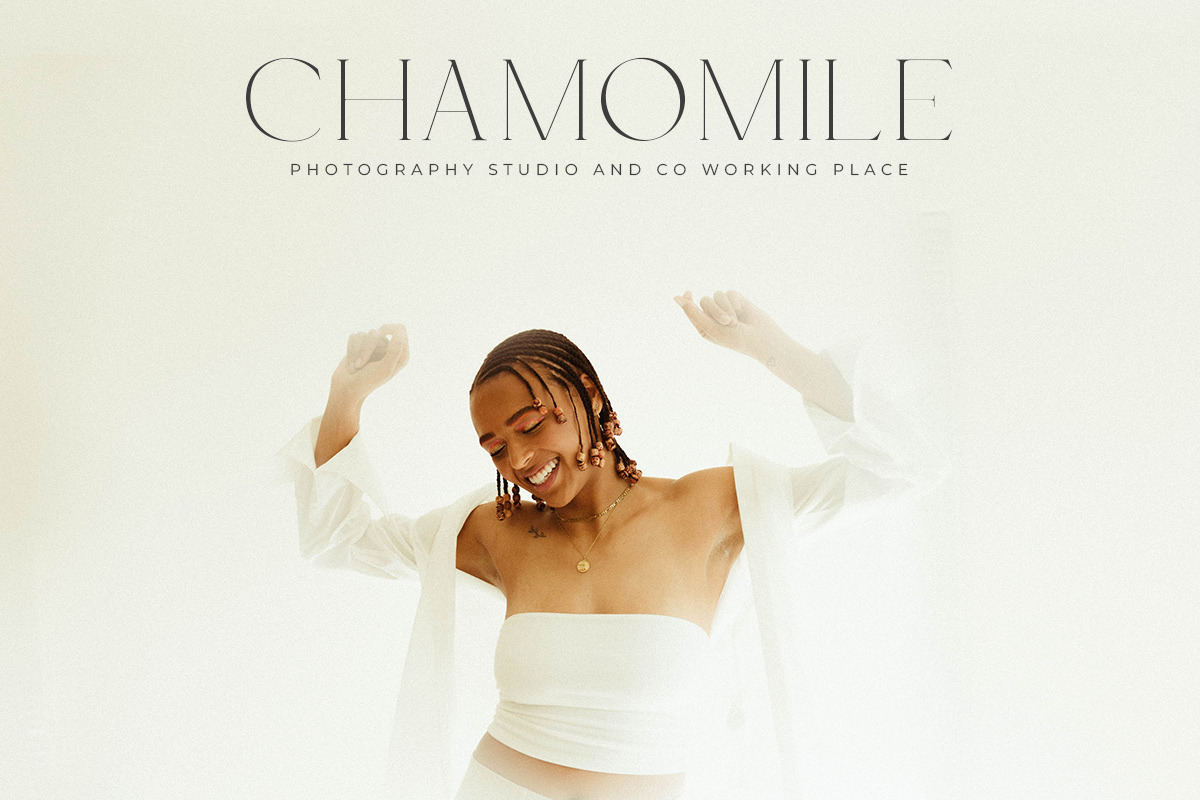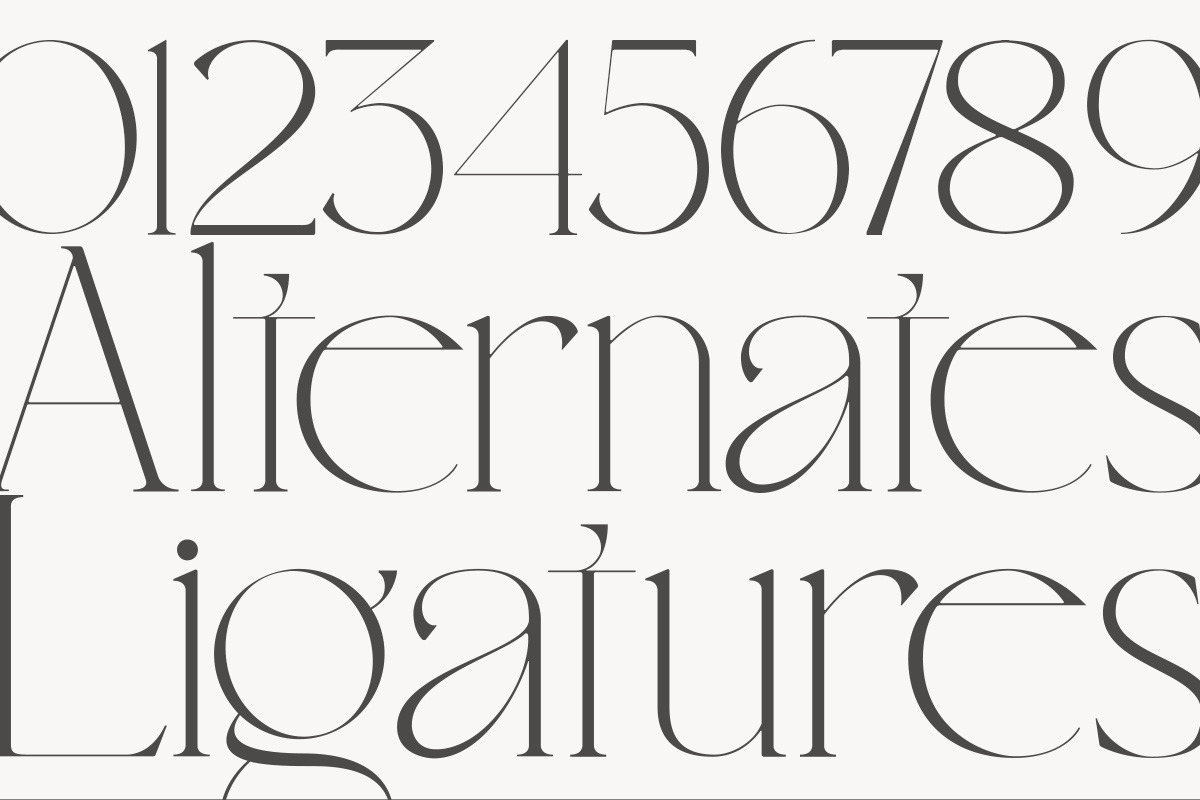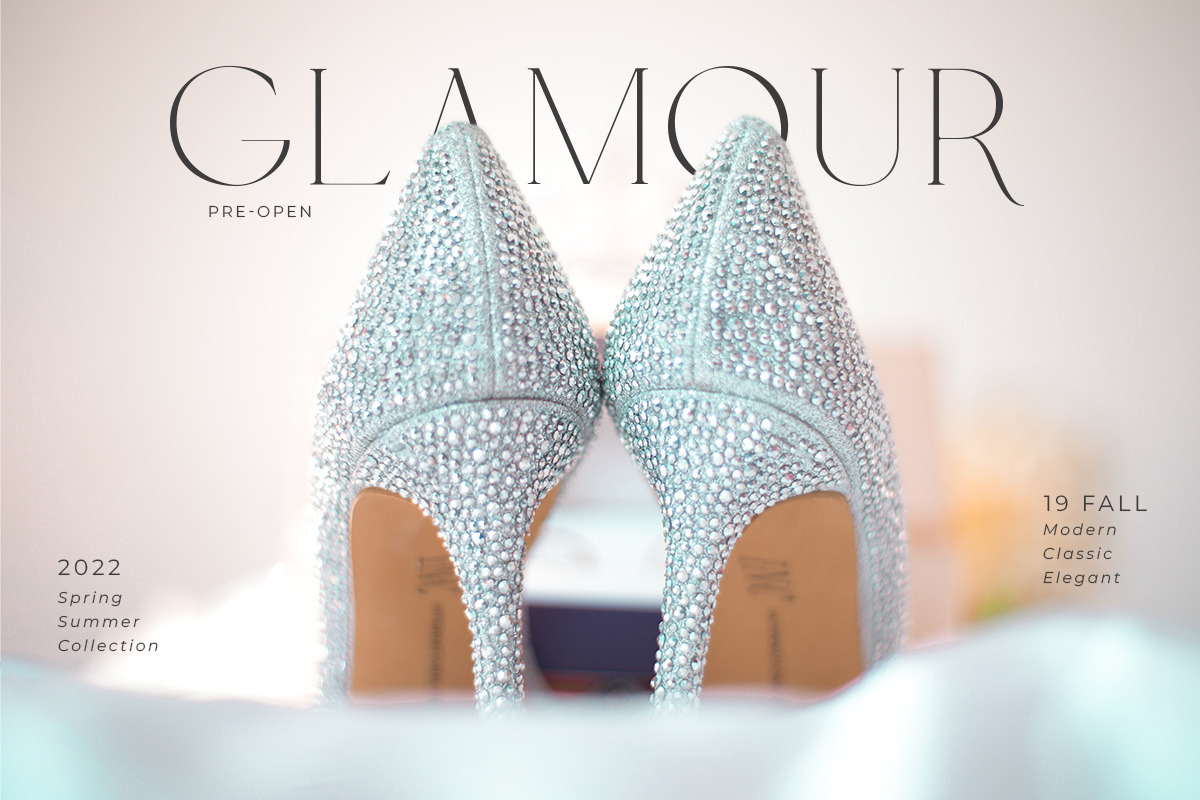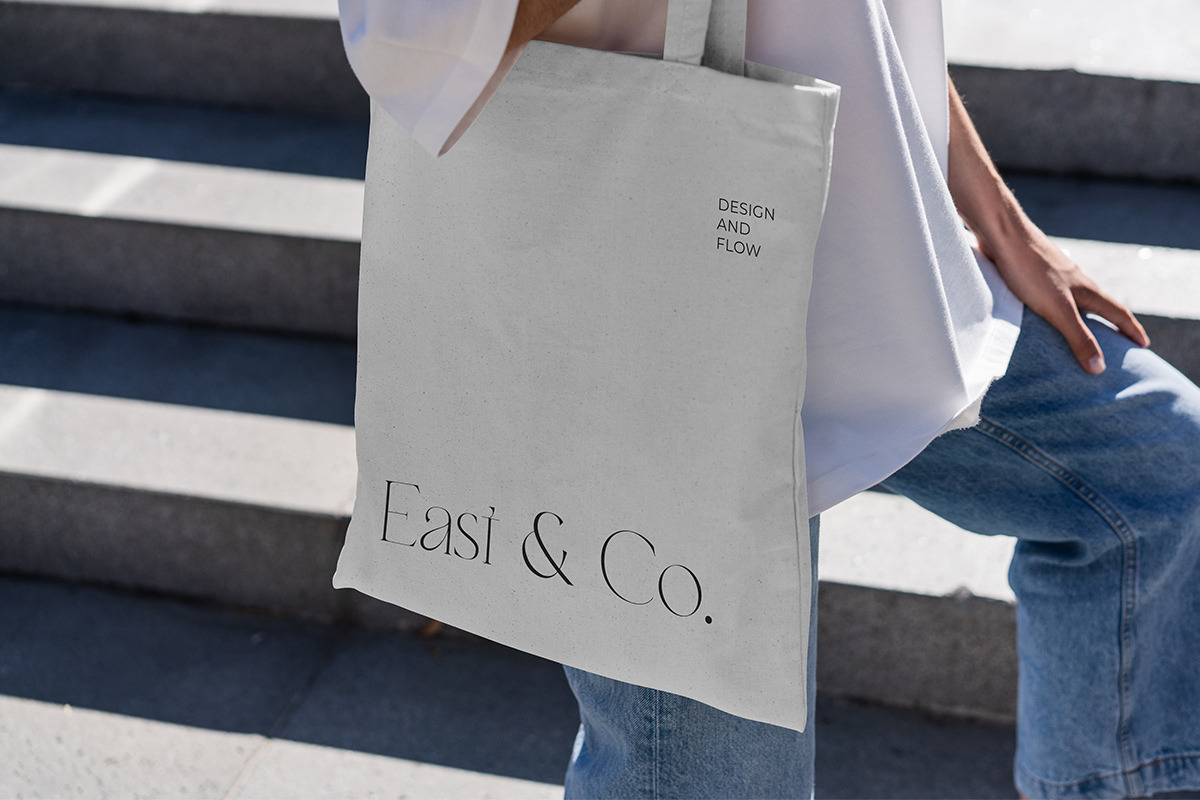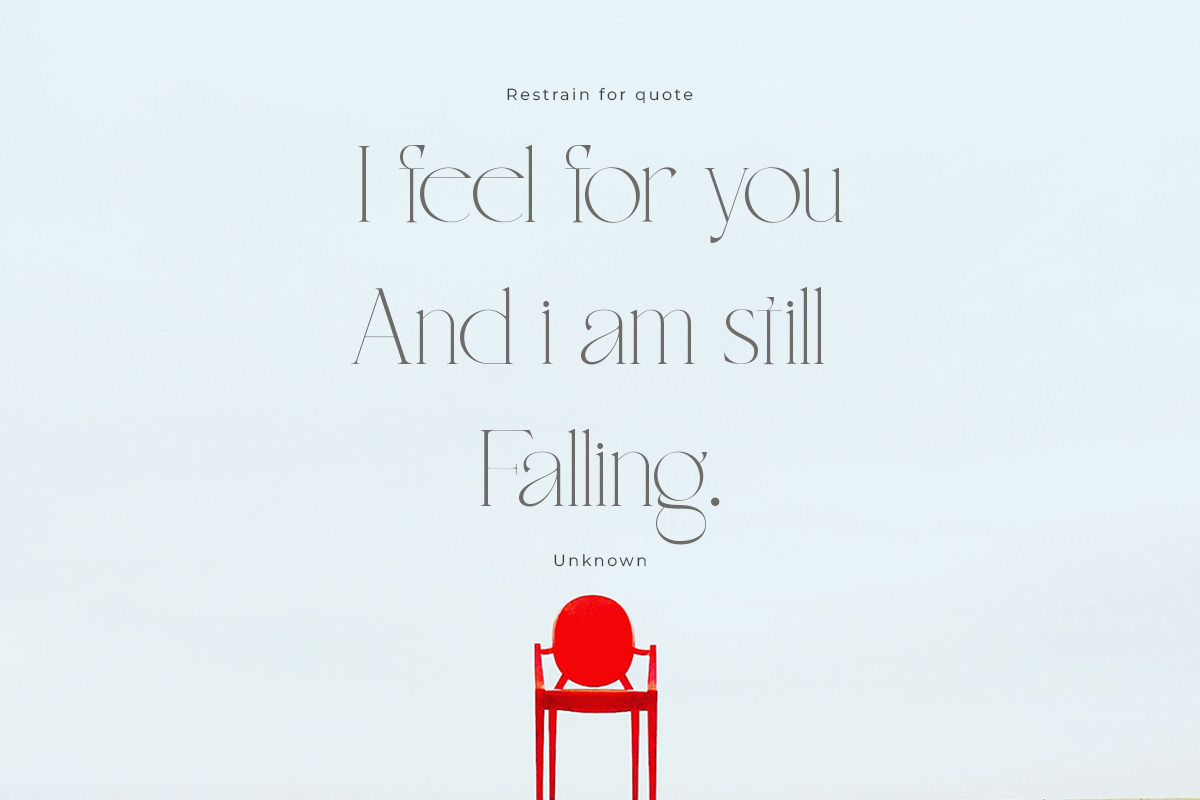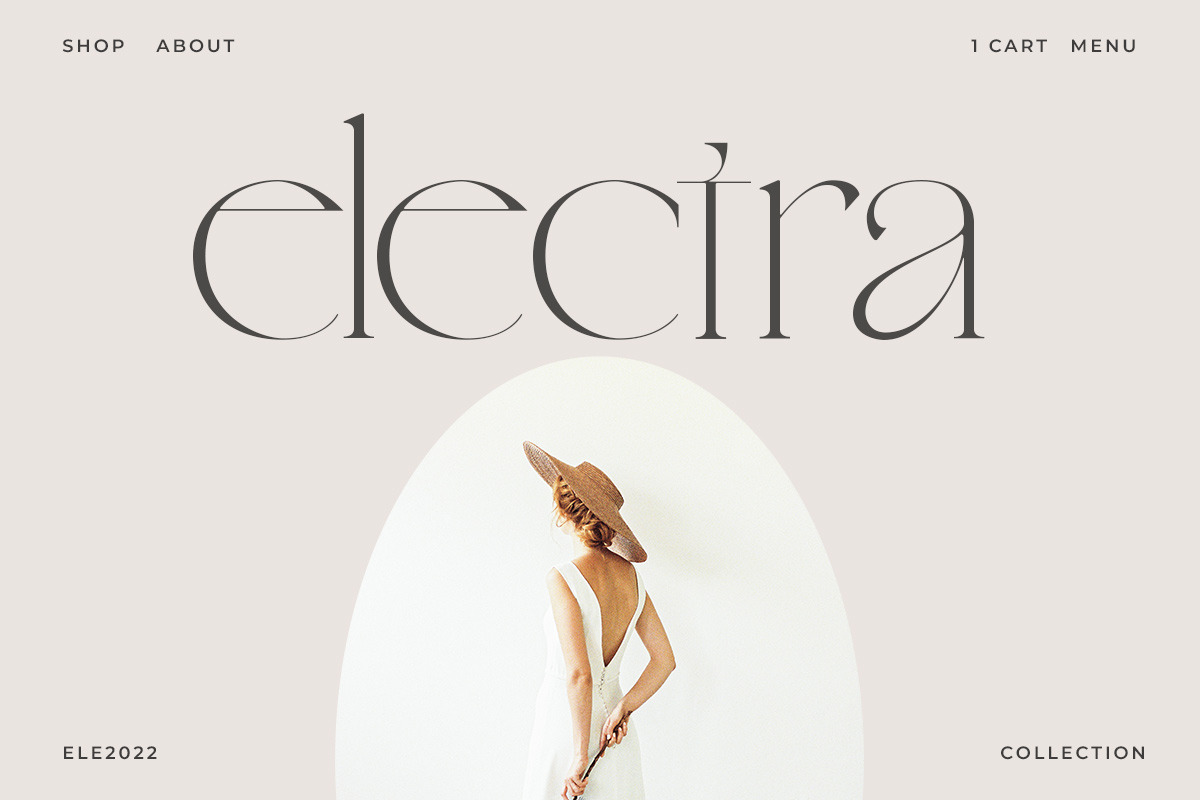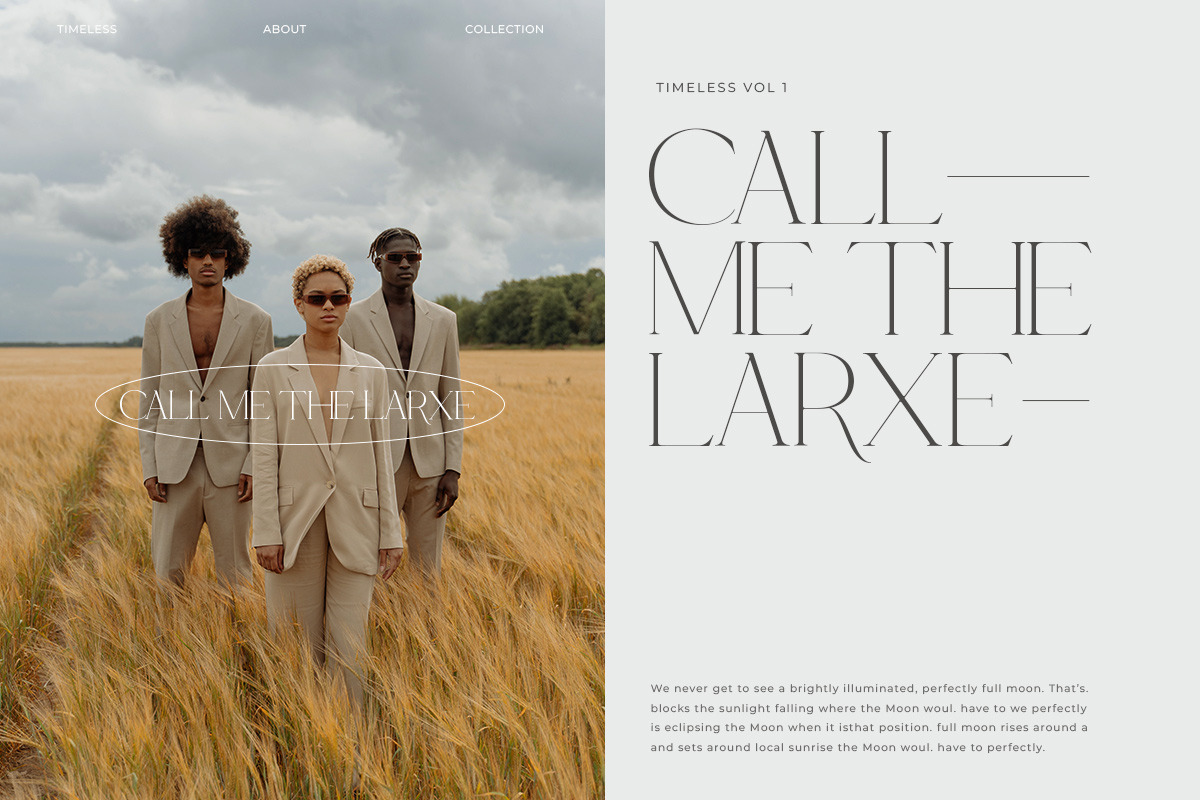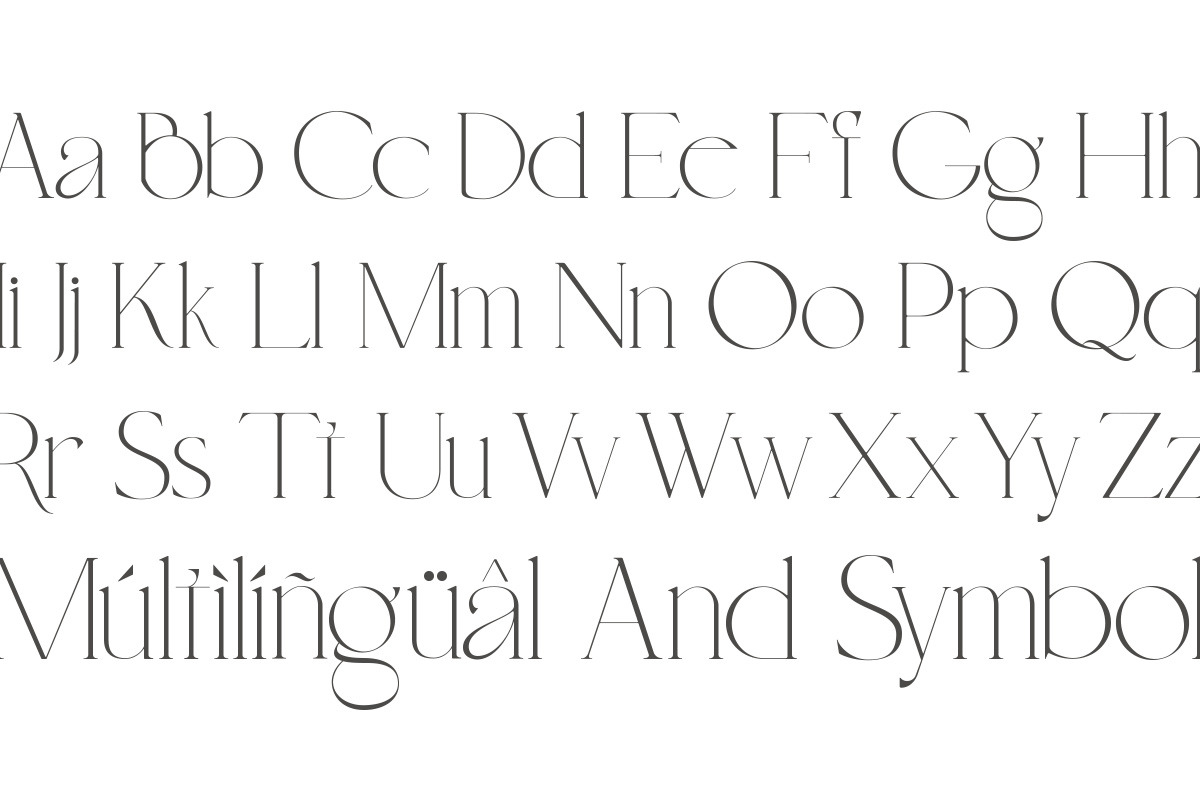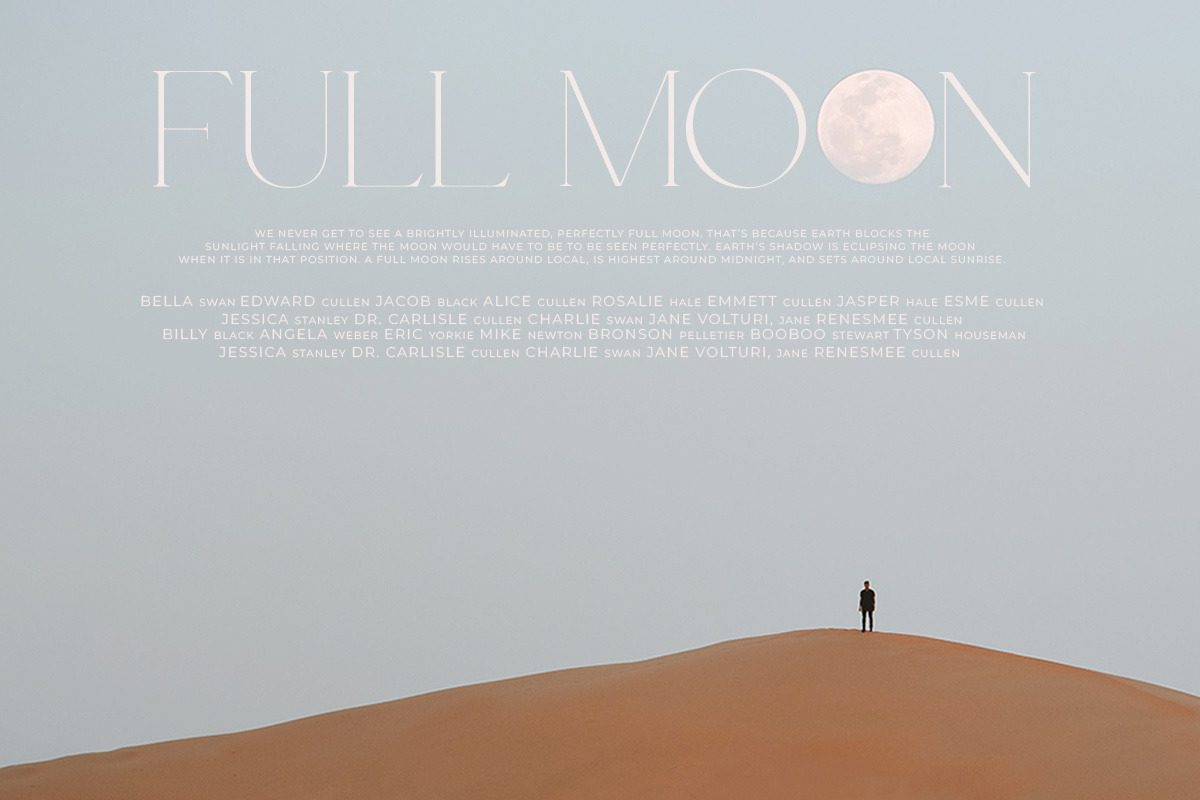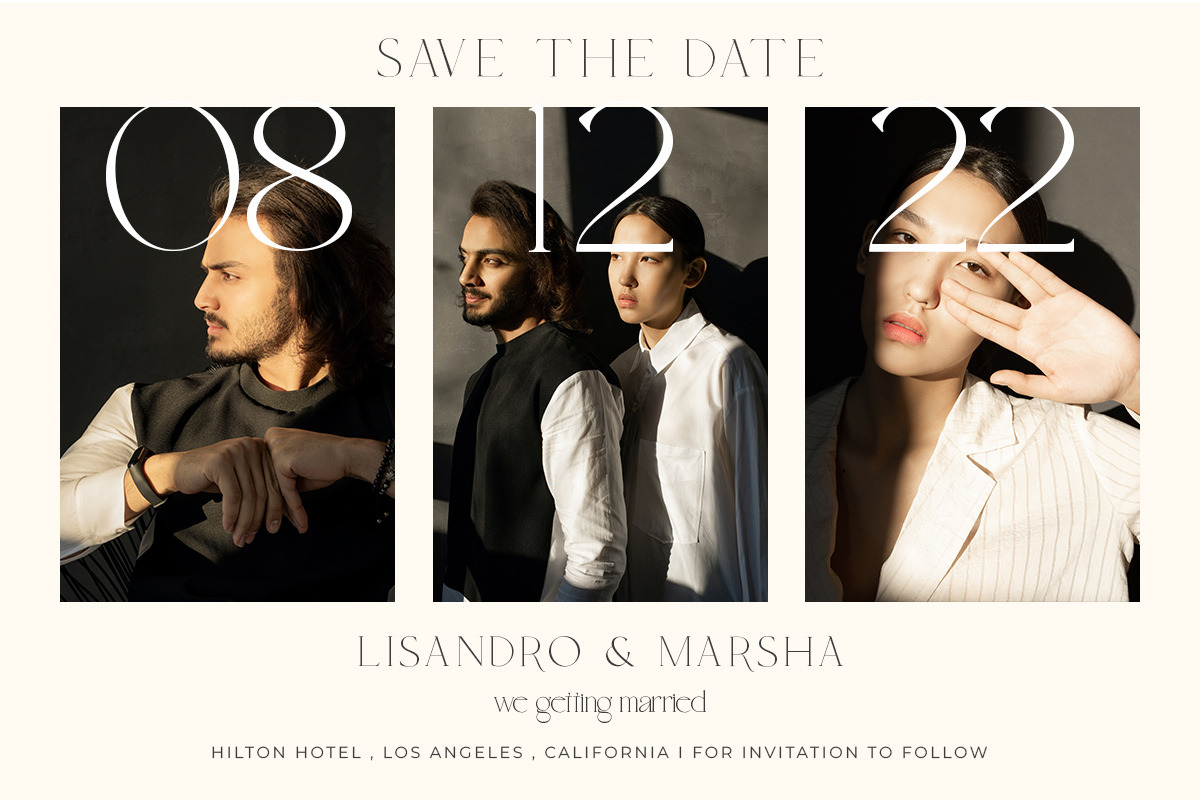
Restrain - Resort Branding Serif
Restrain is a Modern serif typeface Unique alternate , multilingual support with perfect kerning. its modern and minimal treatment, it makes a great starting point as well as an enhancement for your design. It is perfect for cosmetic brand, fashion promotion , modern advertising design, invitation card, art quote, home decoration , book/cover titles, special events, and much more .